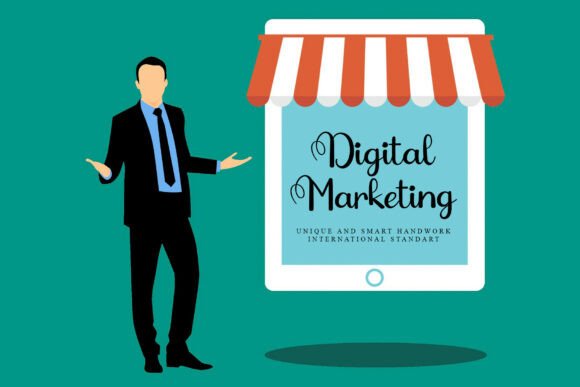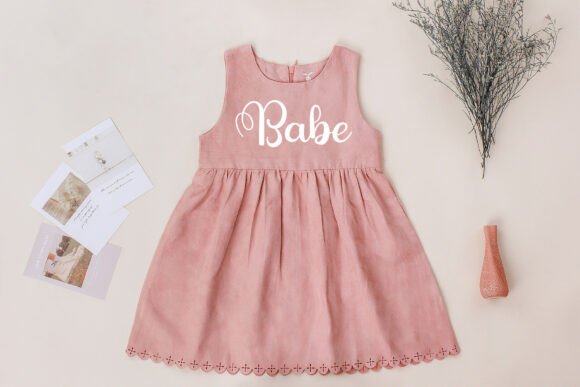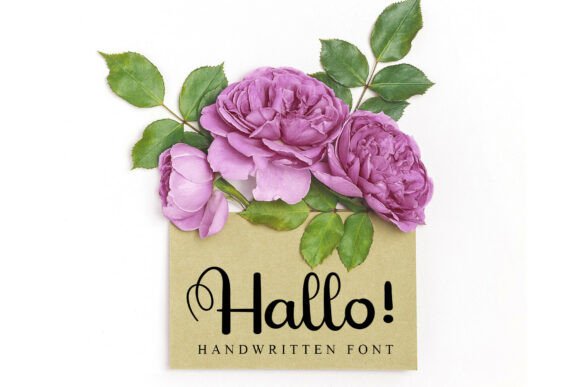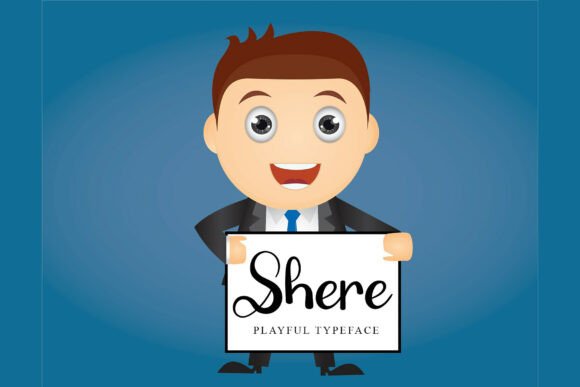
Introducing Deddy Font: Elevate Your Designs with Elegance
In the world of typography, a font can make all the difference in the aesthetic and effectiveness of a design. For those seeking a unique and elegant touch, Deddy Font emerges as an exceptional choice. Specially crafted with a professional hand touch, Deddy Font is poised to transform your projects, greeting cards, party invitations, school assignments, and any other creative endeavors into visually stunning masterpieces.
The Essence of Deddy Font
Deddy Font is not just another typeface; it’s a meticulously crafted tool designed to bring an element of sophistication and charm to your work. Whether you’re a designer, a crafter, or someone who loves to put their personal touch into every project, Deddy Font is tailored to meet your needs. Its elegance and versatility make it an ideal choice for a wide range of applications.
Professional Craftsmanship
What sets Deddy Font apart is its professional craftsmanship. Every letter, every curve, and every line has been carefully designed to ensure that it not only looks great on its own but also complements the overall design when used. This attention to detail ensures that your projects stand out, conveying a sense of quality and thoughtfulness.
Ideal for Various Projects
Deddy Font’s versatility is one of its strongest attributes. It’s perfect for:
- Wedding Invitation Cards: Add a touch of romance and elegance to your wedding invitations.
- Birthday and Party Invitations: Make your party invites stand out with a stylish and modern font.
- School Assignments: Elevate your school projects with a professional look that is sure to impress.
- Creative Projects: Whether it’s a personal blog, a brand logo, or any creative project, Deddy Font can add that extra wow factor.
Accessibility and Compatibility
Another significant advantage of Deddy Font is its accessibility. It comes with all glyphs, ensuring that you have a wide range of characters at your disposal without needing any additional applications. This feature makes it incredibly convenient to use for various projects, saving you time and effort.
Tips for Using Deddy Font
To make the most out of Deddy Font, consider the following tips:
- Pair it with Other Fonts: Experiment with Deddy Font by pairing it with other fonts to create interesting contrasts and hierarchies in your design.
- Play with Sizes: Don’t be afraid to vary the font sizes to add emphasis and create visual interest.
- Utilize its Elegance: Given its elegant nature, Deddy Font works exceptionally well for headings, titles, and any text where you want to make an impact.
Deddy Font is more than just a typeface; it’s a design element that can elevate your projects to new heights of elegance and professionalism. Whether you’re working on a creative project, a school assignment, or a professional design, Deddy Font offers the versatility and sophistication you need. With its professional craftsmanship, wide range of uses, and ease of accessibility, Deddy Font is an excellent addition to any designer’s or crafter’s toolkit. So, why settle for ordinary when you can make your designs extraordinary with Deddy Font?